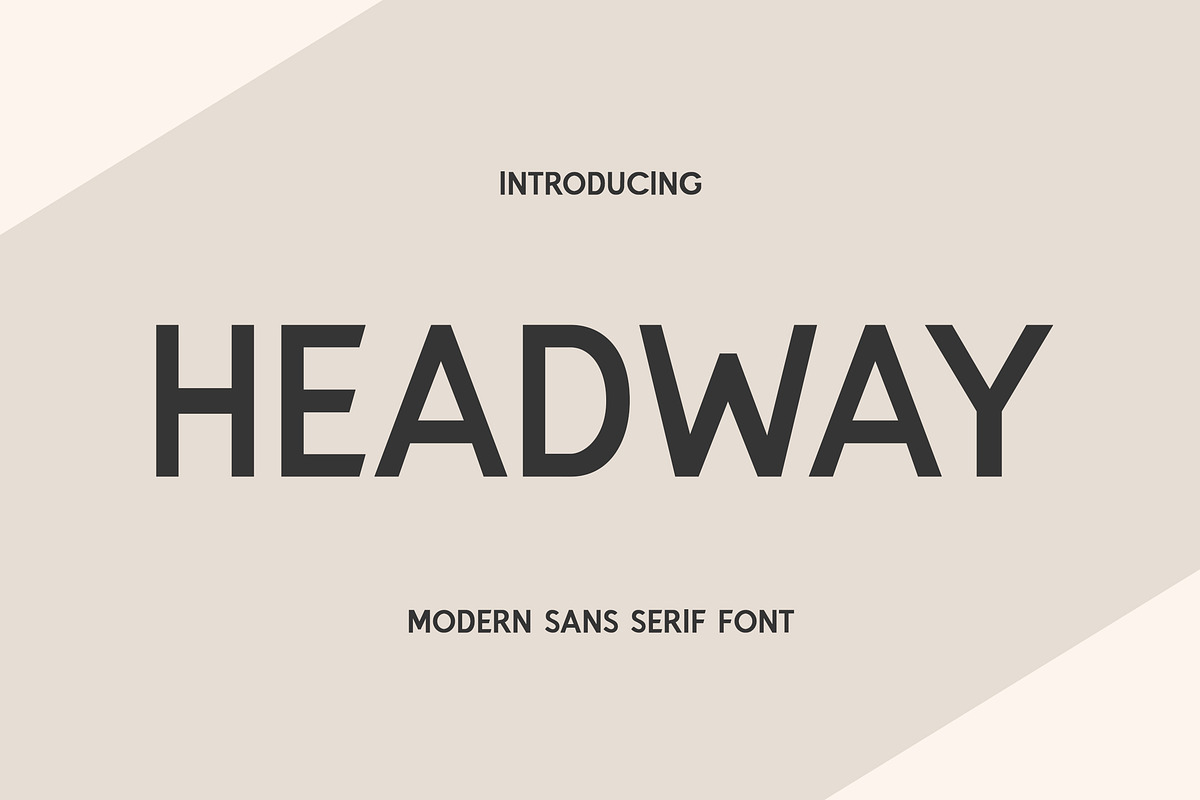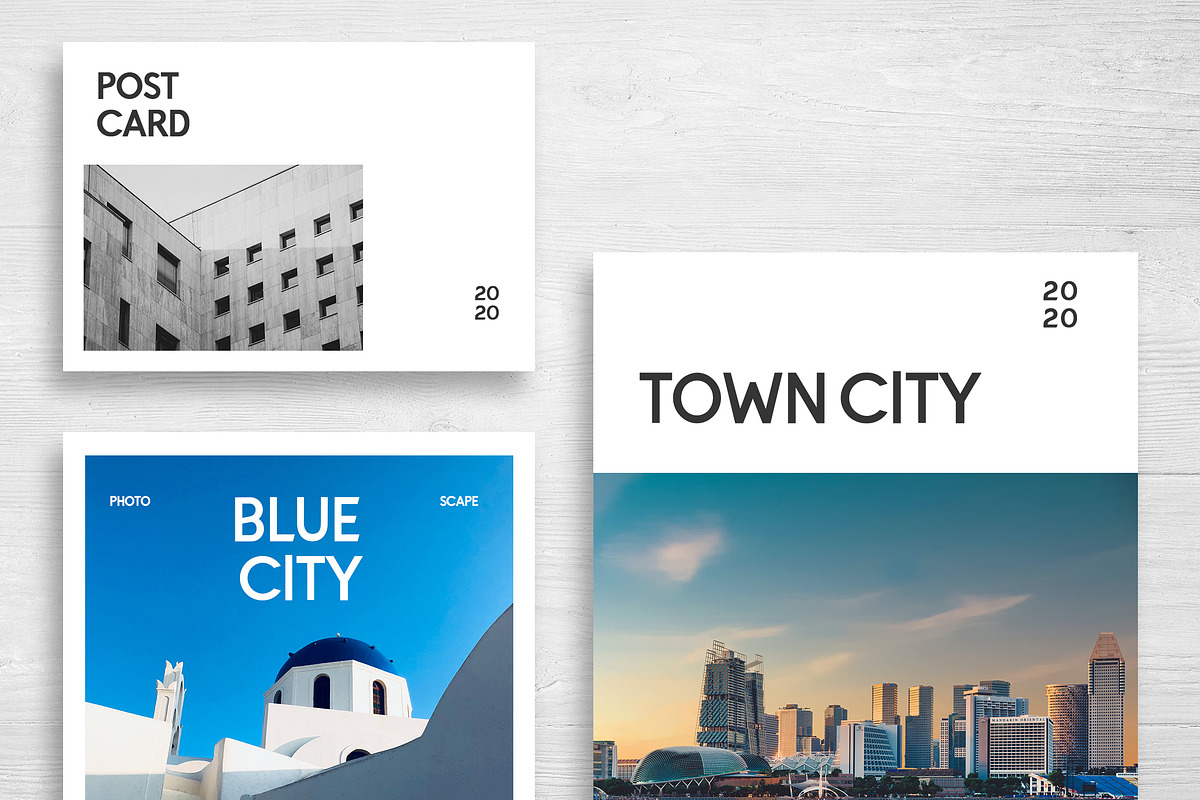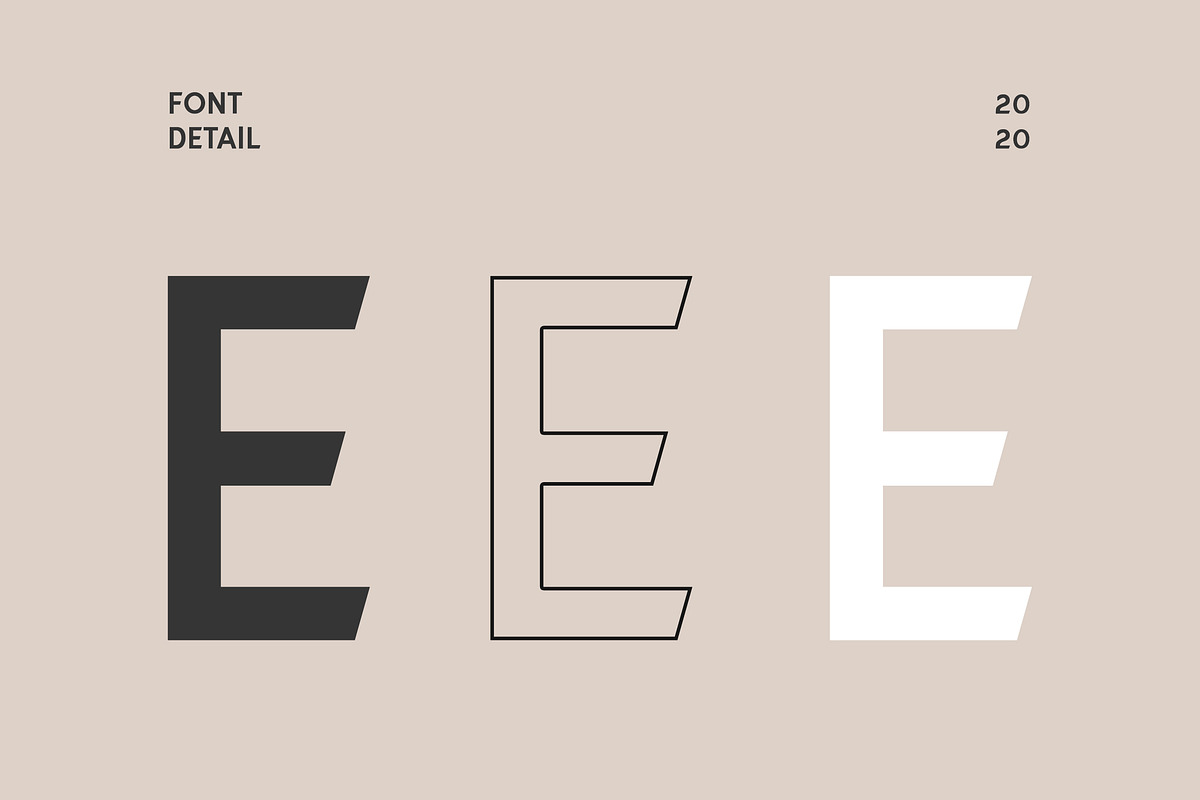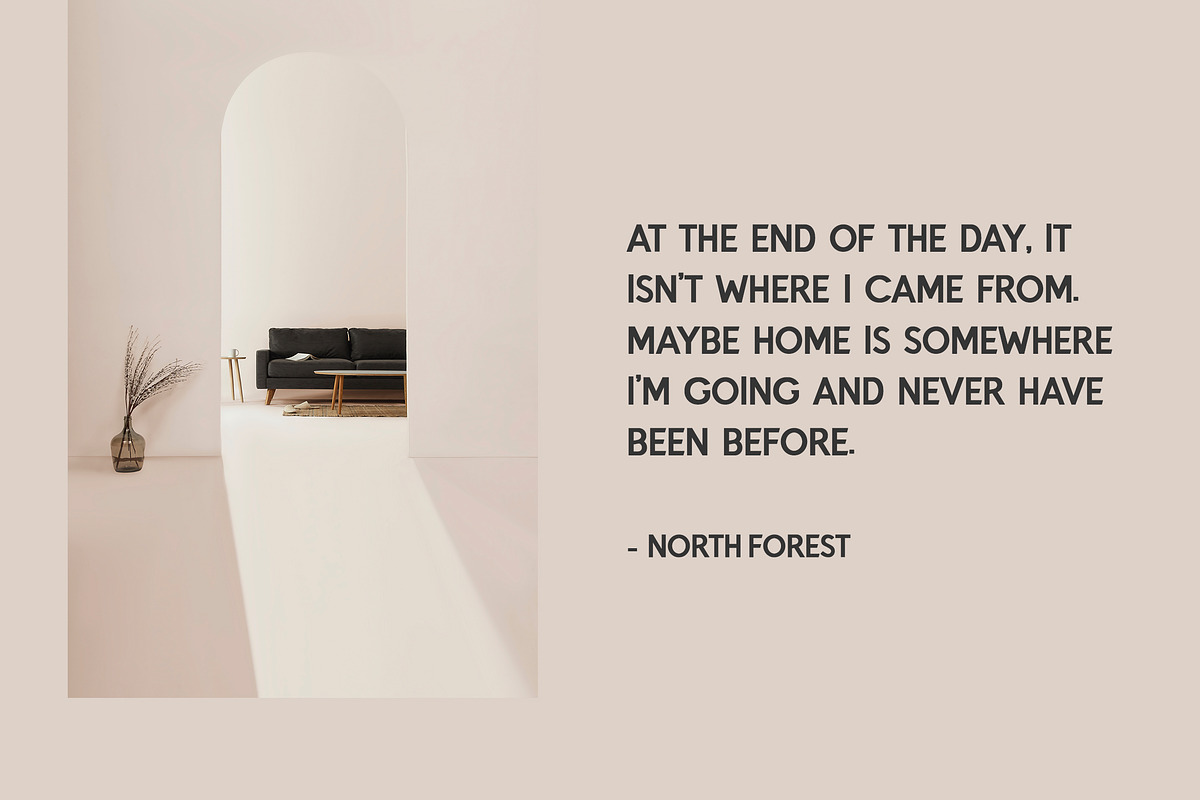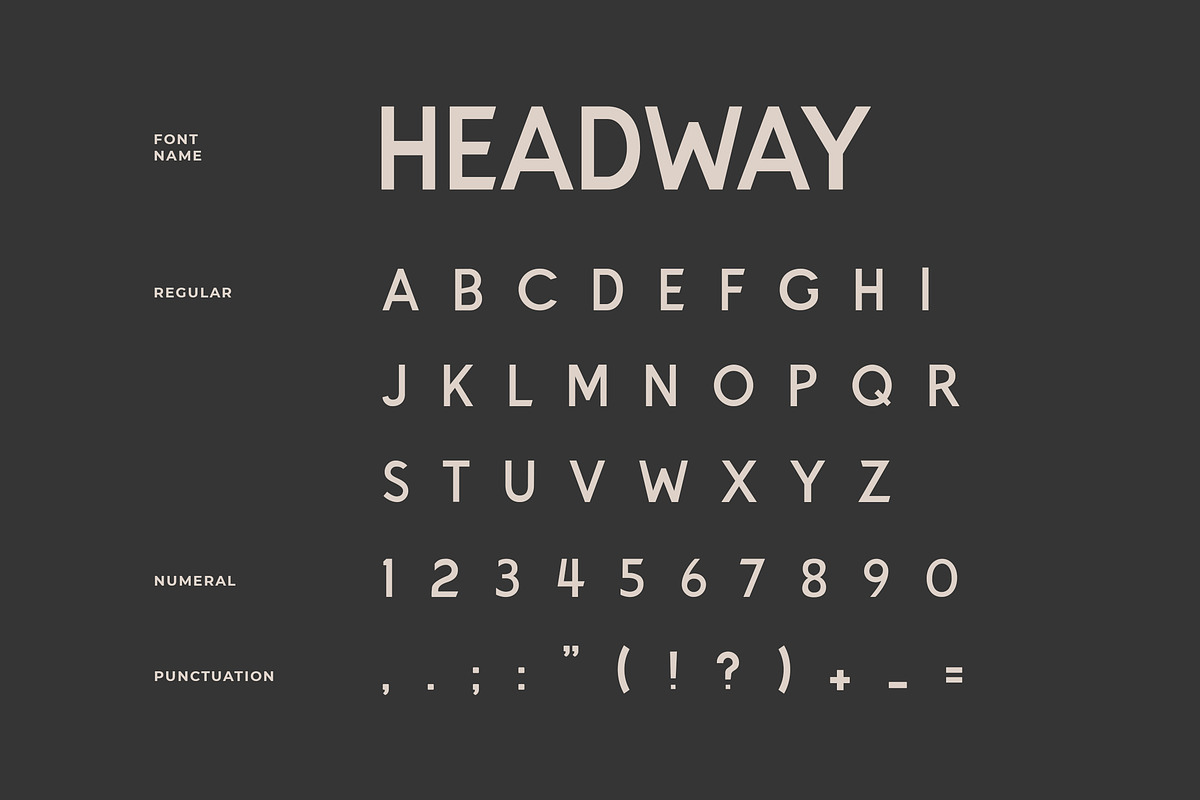
Headway Display Sans Serif Font
Headway is playful sans serif font . Very suitable to be used for the manufacture quote text, logotype, header magazine, t-shirt design, and concept handmade designs, etc.